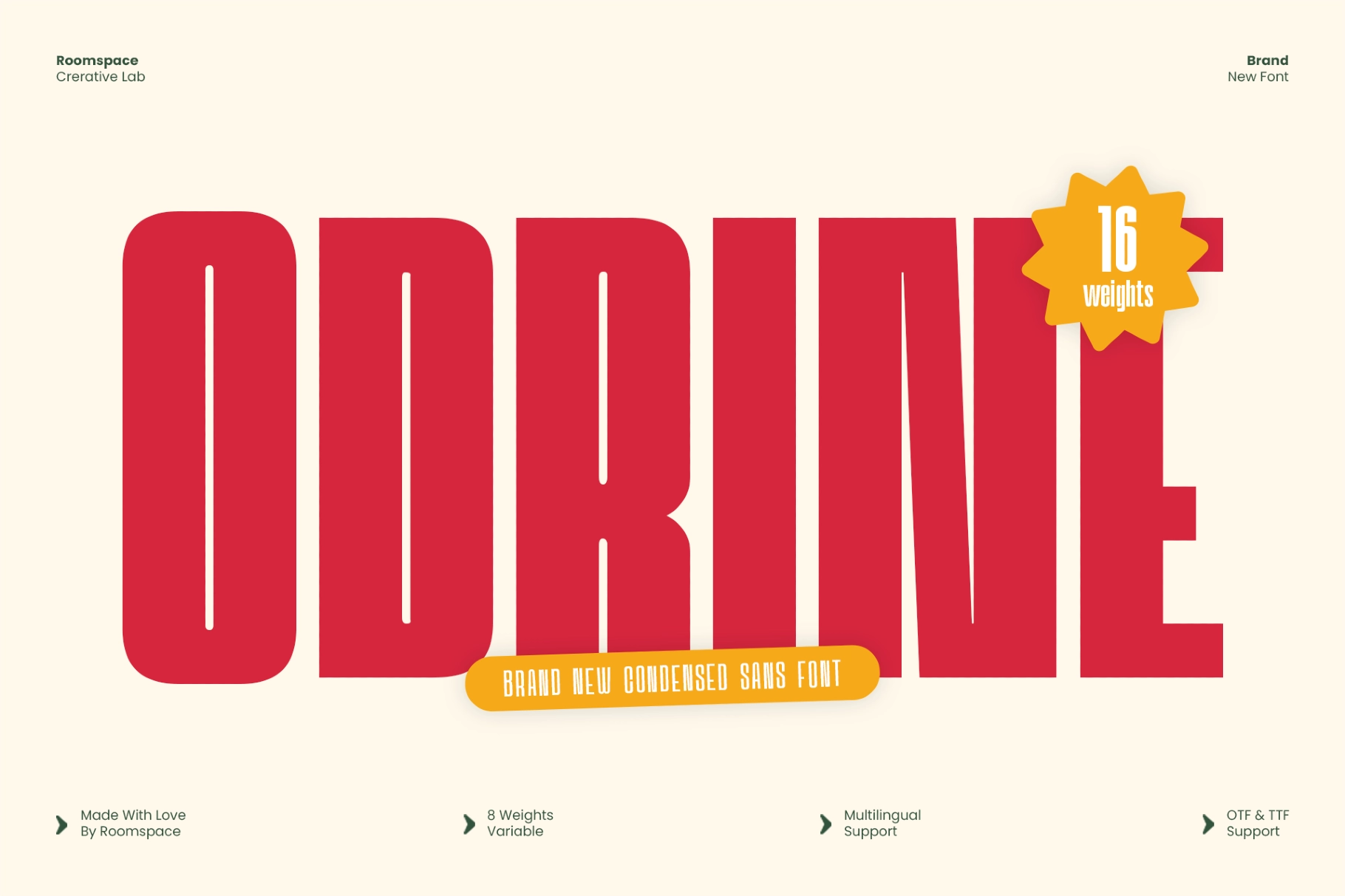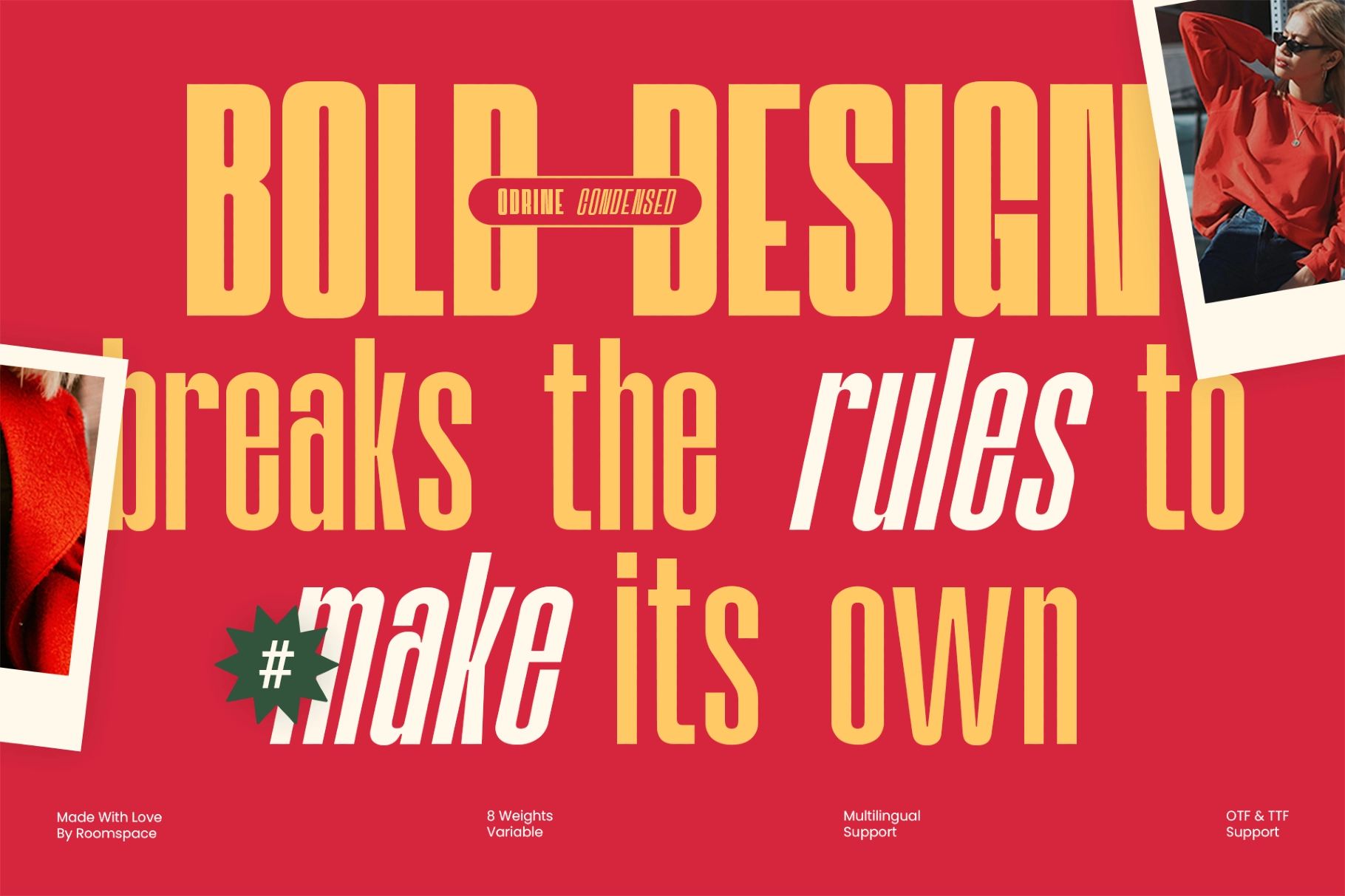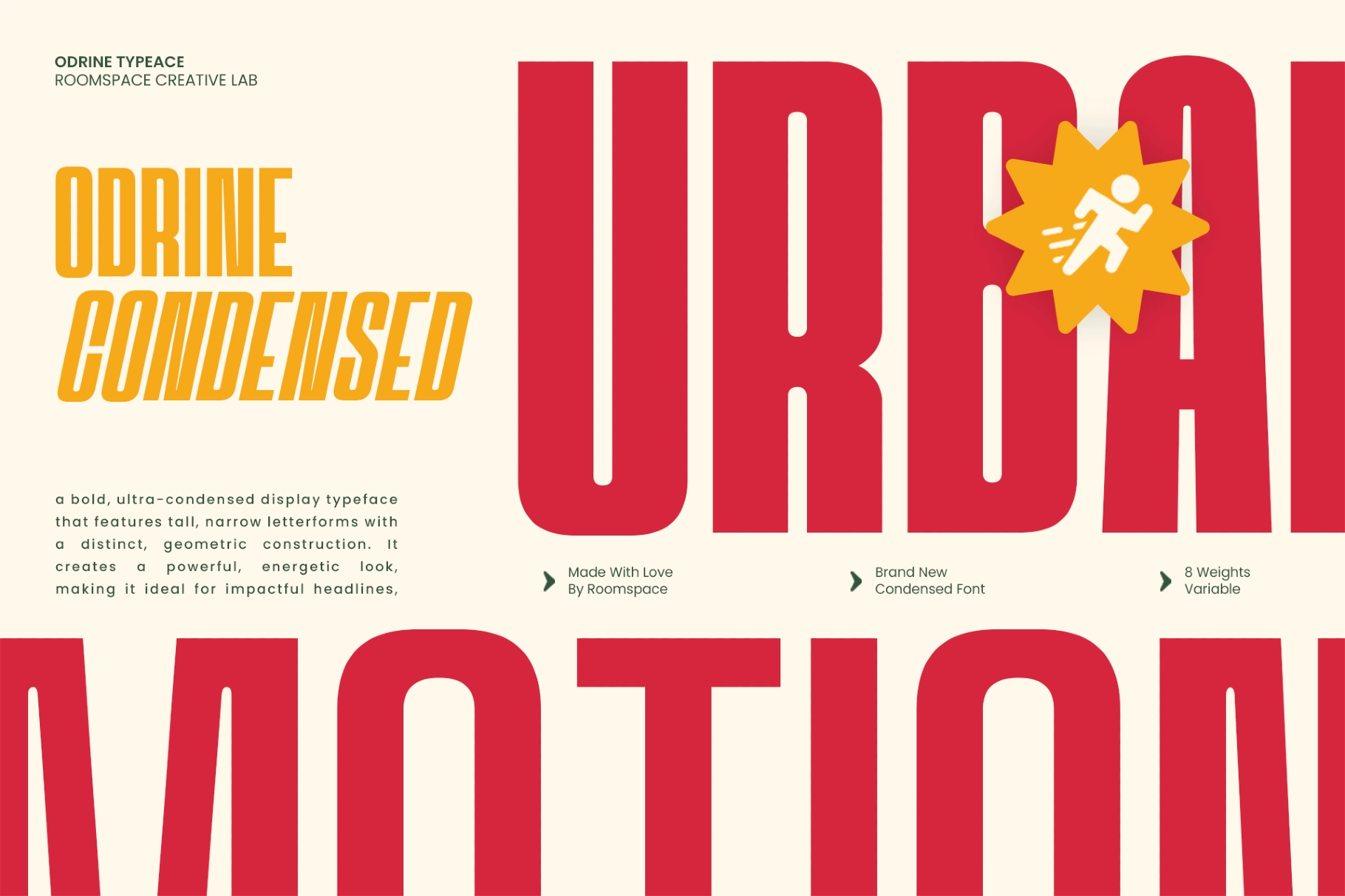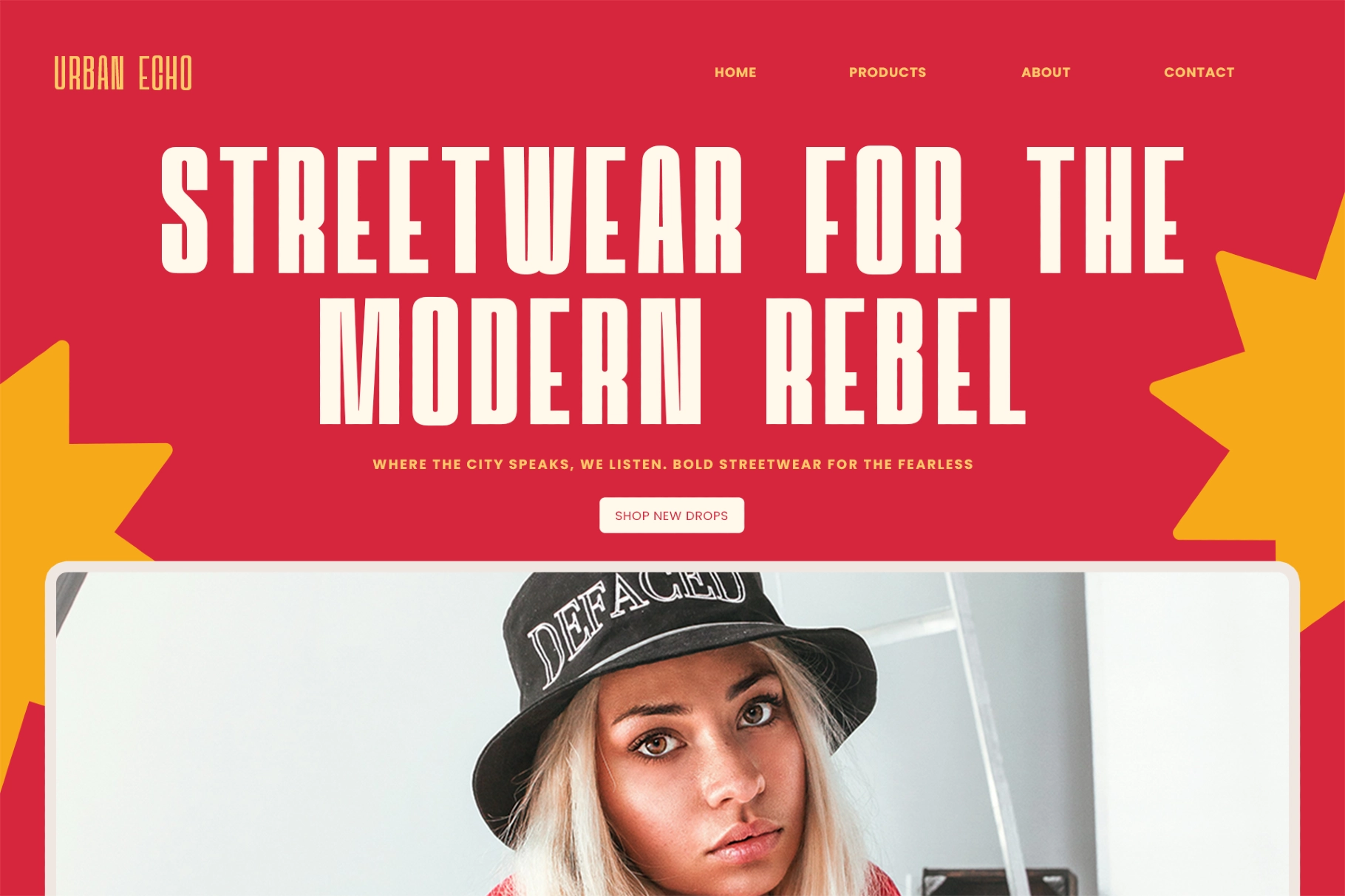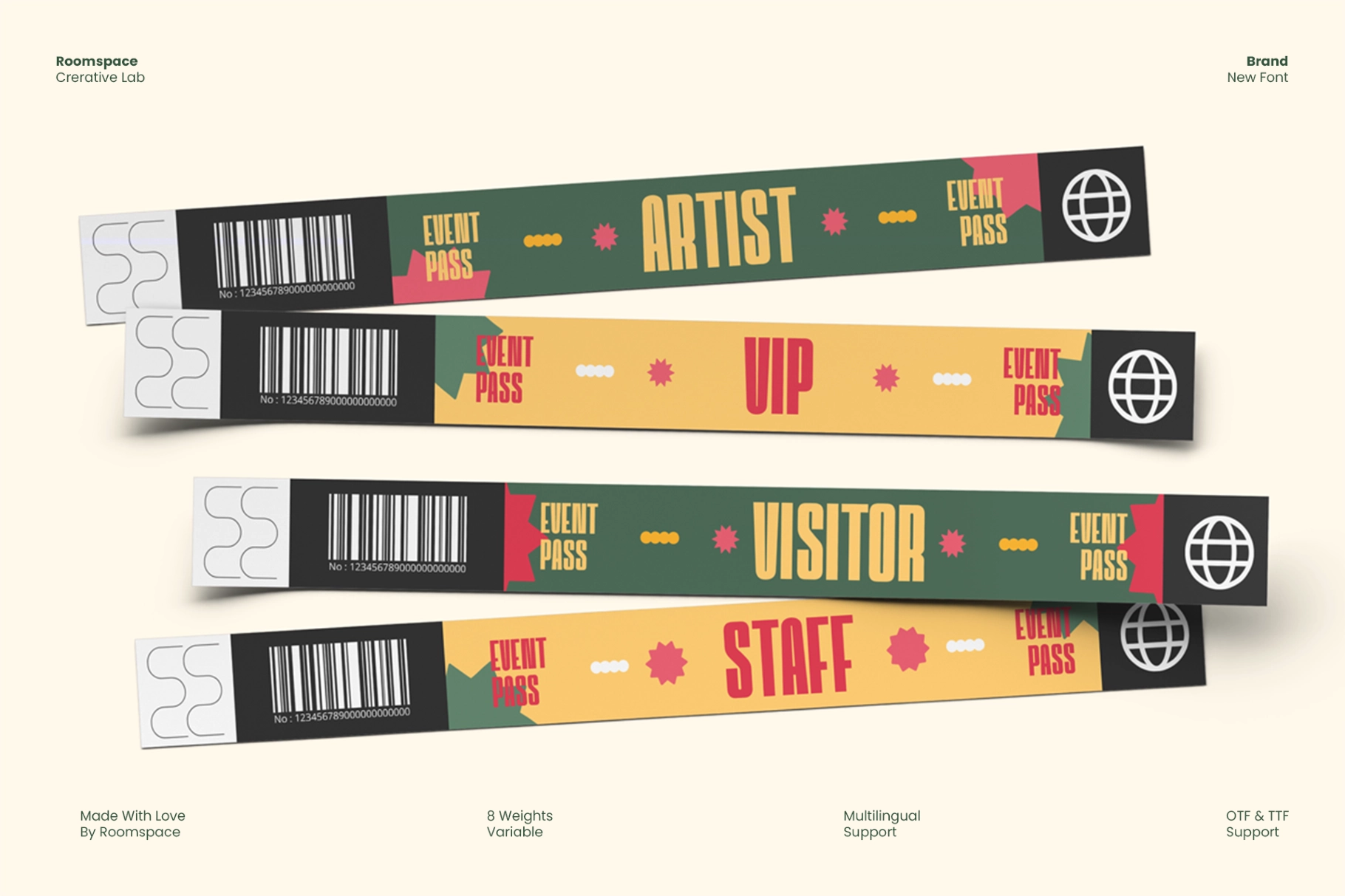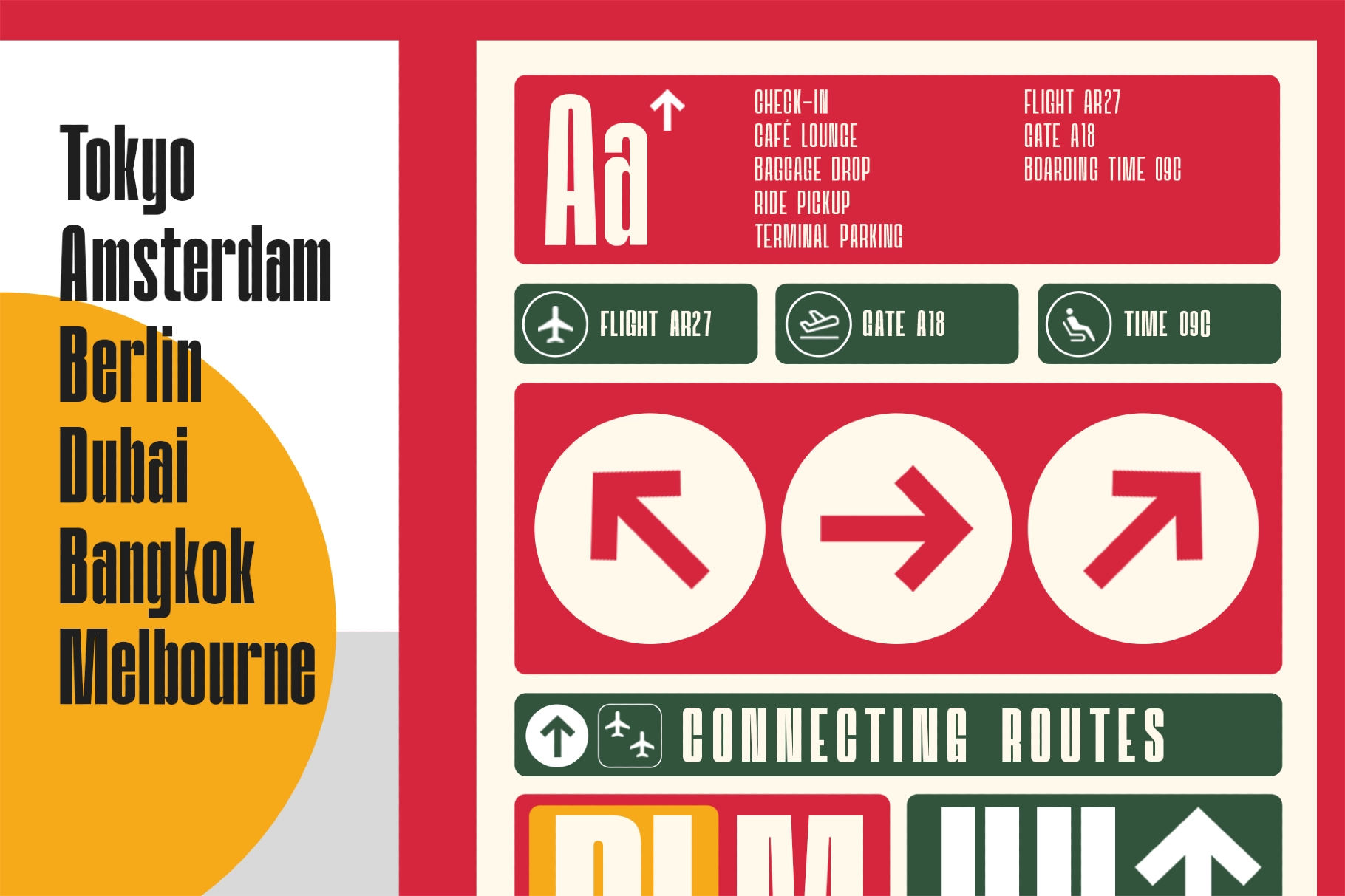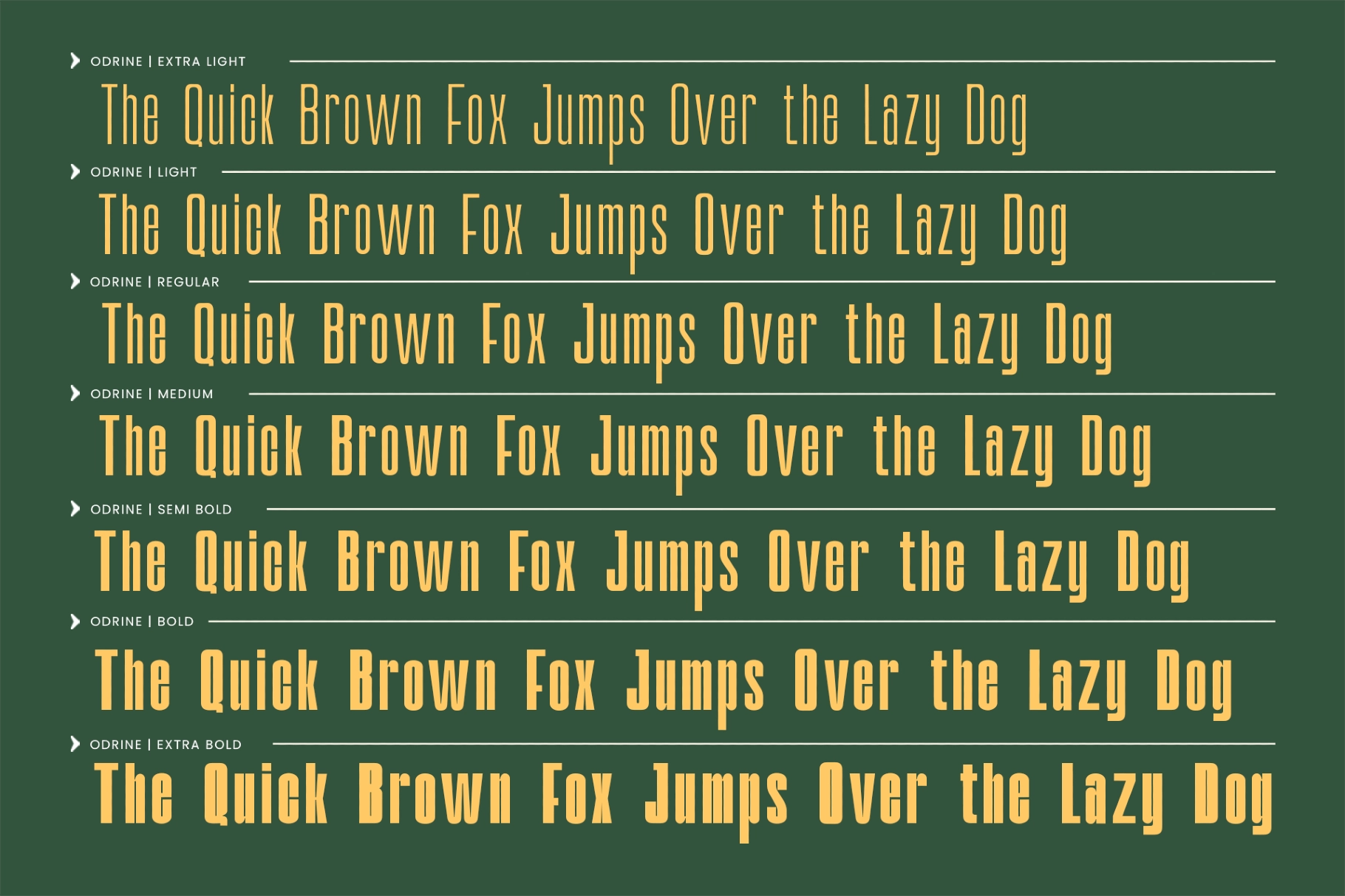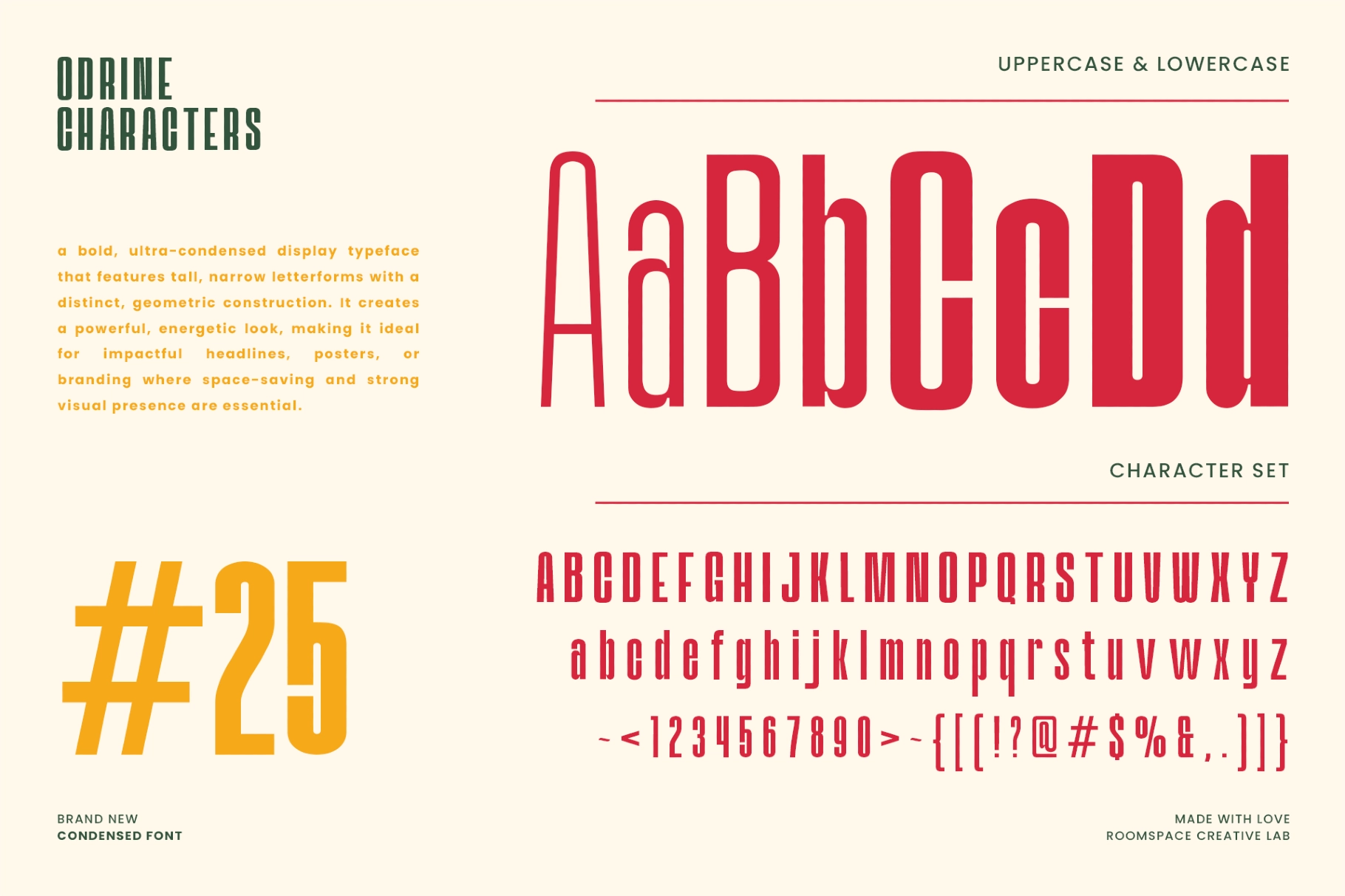
Odrine - Retro Condensed Font Family
A condensed sans serif with tall letterforms, flat-cut terminals, and a compact rhythm made for graphic punch. Its retro character points to airport signage, 1970s editorial systems, sports graphics, and poster typography with clean geometry doing the heavy lifting.
Odrine fits poster headlines, magazine covers, pull quotes, fashion branding, studio wordmarks, beverage labels, cosmetic packaging, event graphics, social media announcements, merchandise prints, zine covers, and wayfinding-inspired layouts.
• 2 Style: Regular, Oblique
• 8 Weights: Thin - Extra Bold